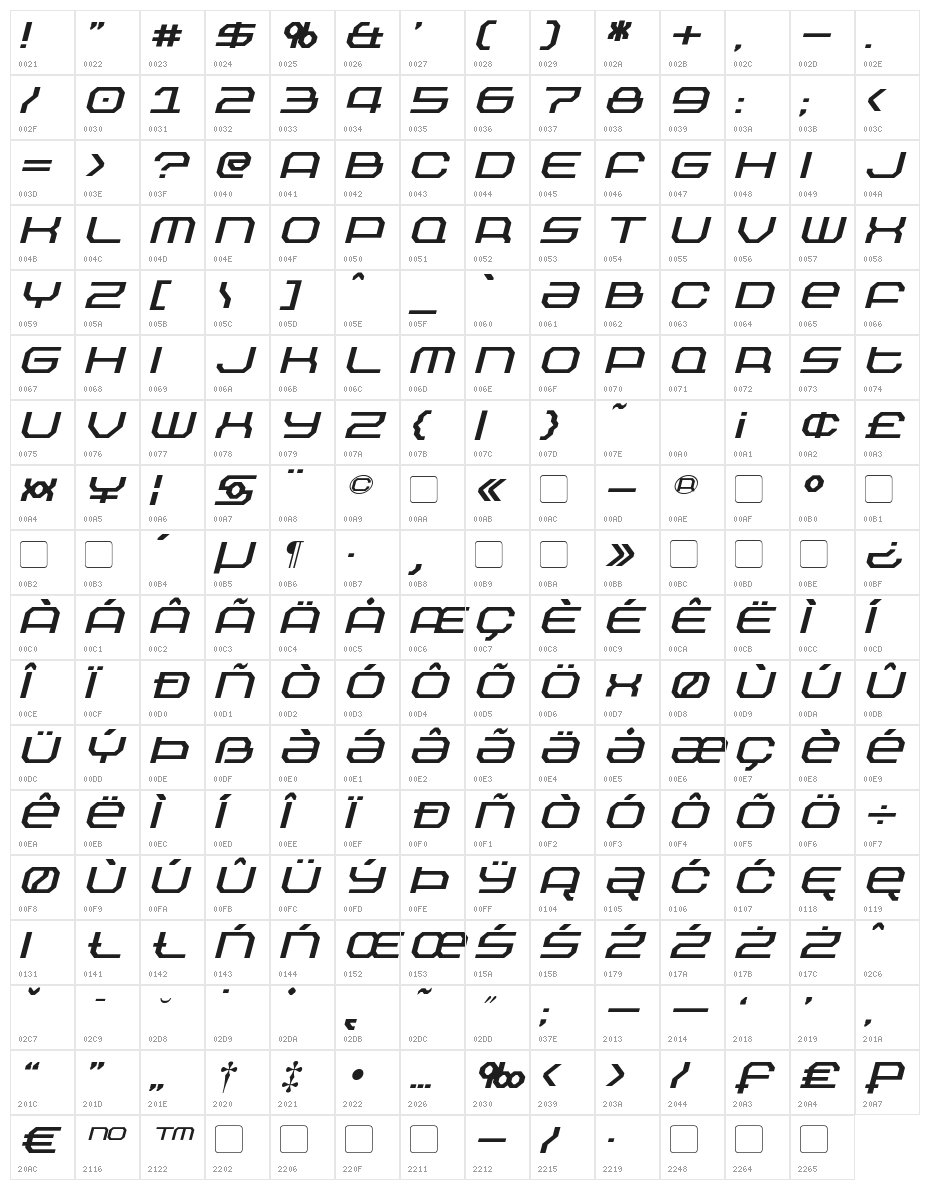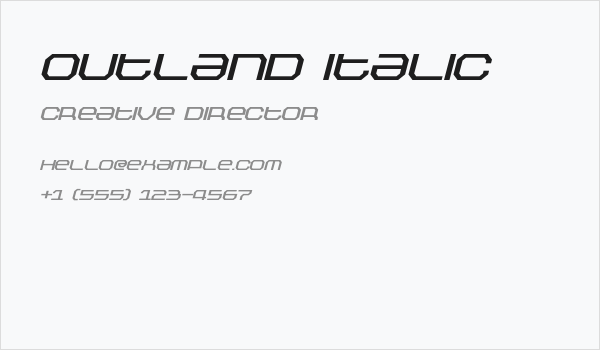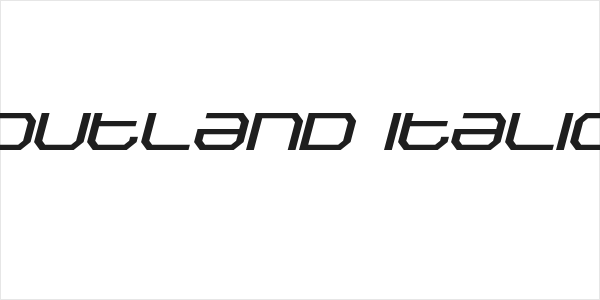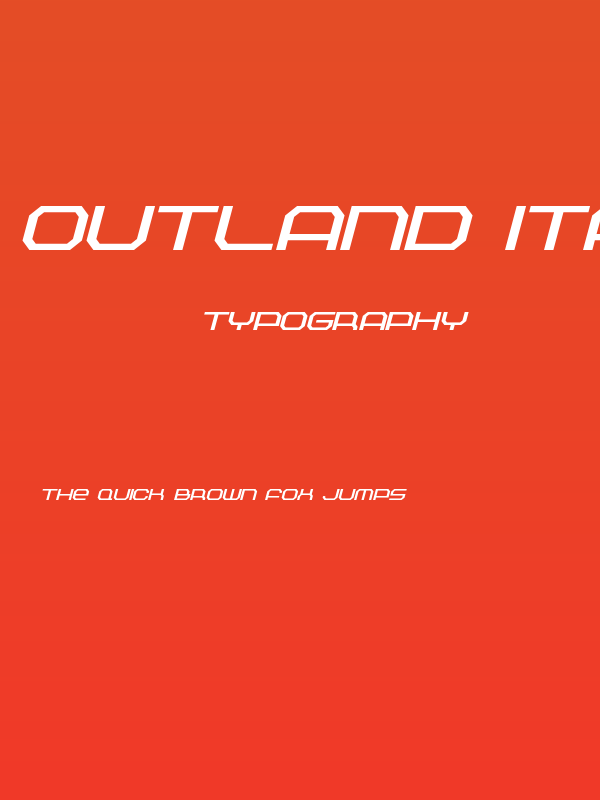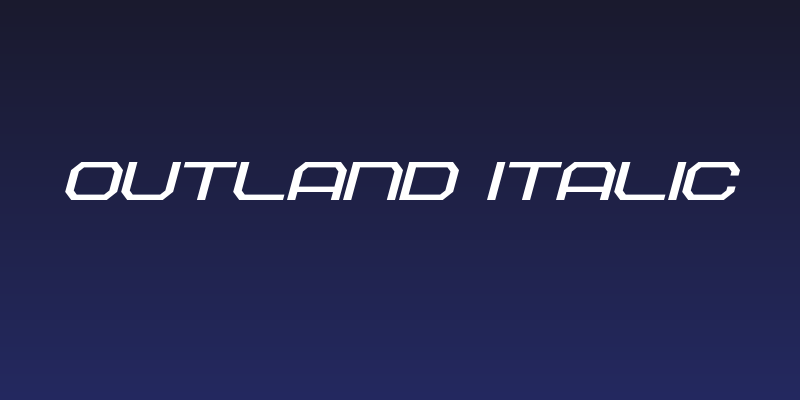
Outland Italic Font
Outland Italic Description
This font features a futuristic and angular design, characterized by its geometric shapes and sharp edges. The italic style adds a dynamic and forward-leaning appearance, enhancing its modern and tech-inspired aesthetic. Each character is crafted with precision, maintaining a consistent angle and structure throughout the set. The uppercase and lowercase letters share a uniform style, with slight variations to distinguish them. Numbers and special characters are designed to match the overall theme, providing a cohesive look. The font's unique style makes it suitable for projects that require a bold and innovative touch.
| Proposed Projects | Ideal for technology branding, sci-fi movie posters, video game titles, and modern digital interfaces. |